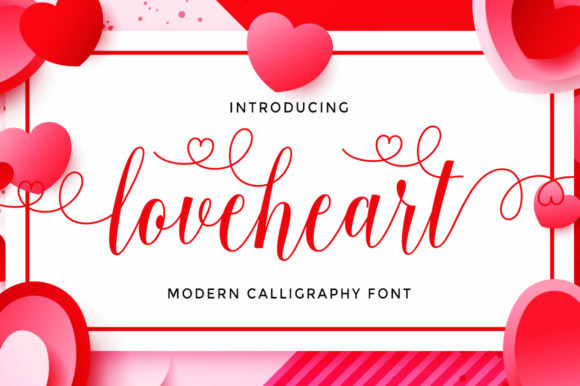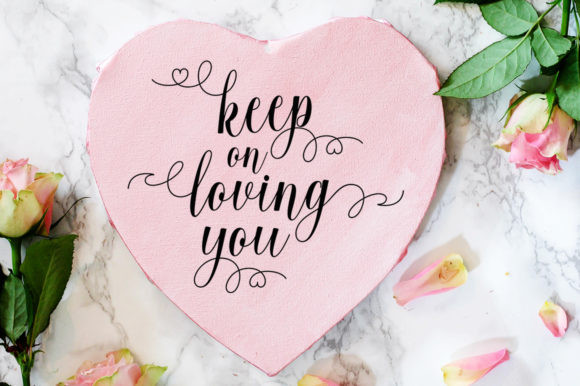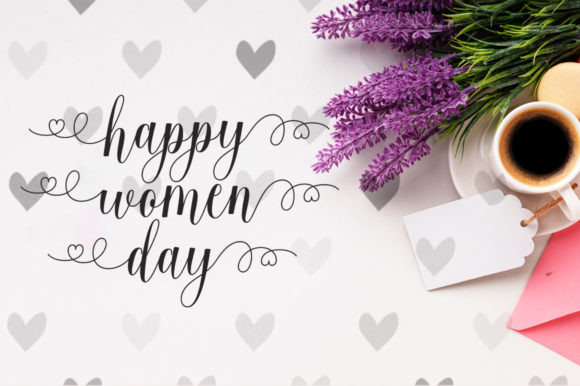
Loveheart Font
Loveheart is a magical script font carefully created with a touch of elegance. It features gorgeous swashes and ligatures that make this script incredibly versatile. Loveheart is the perfect font for making original and outstanding designs.